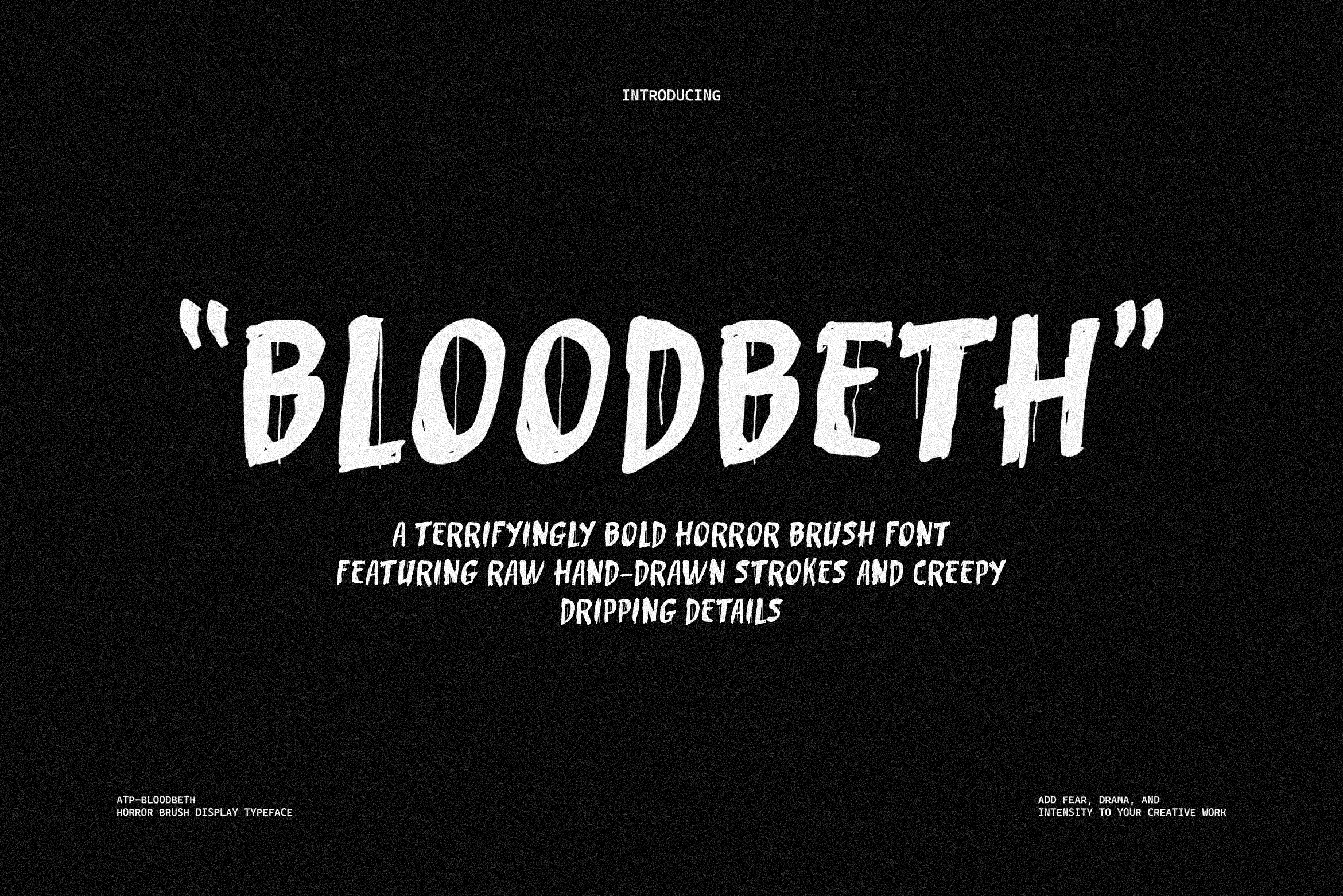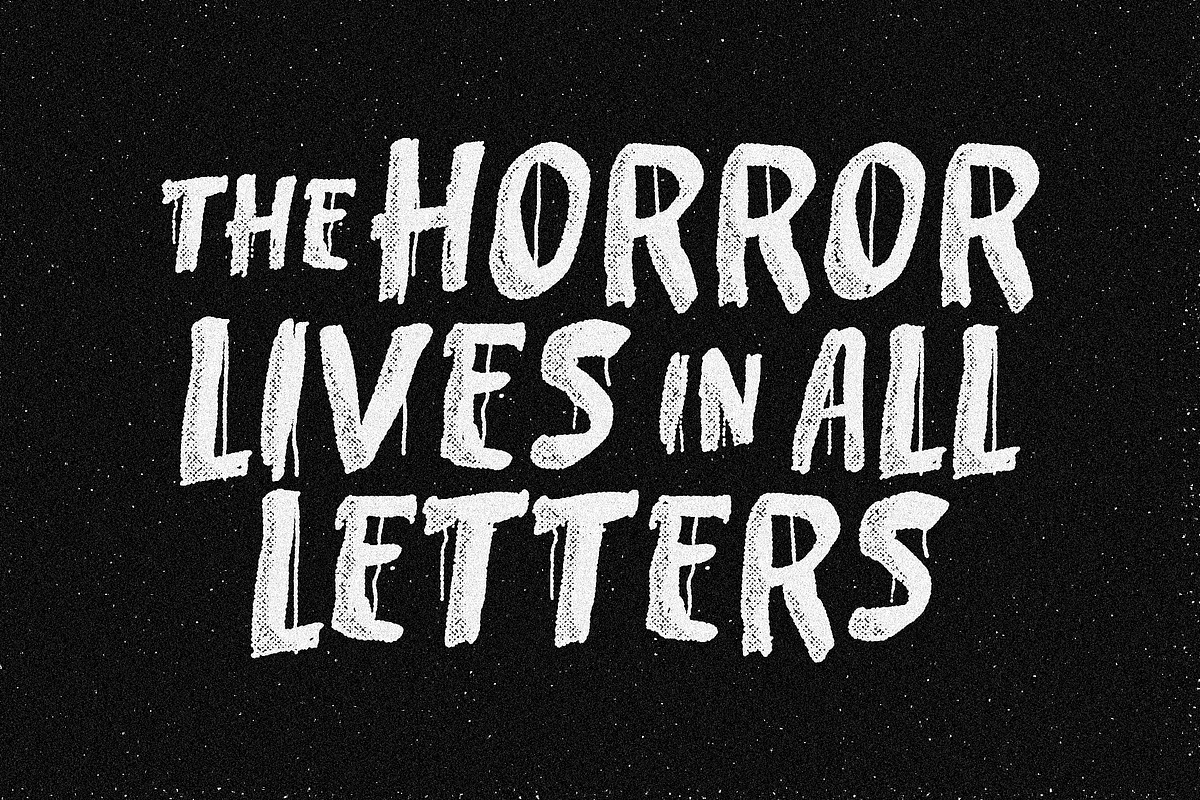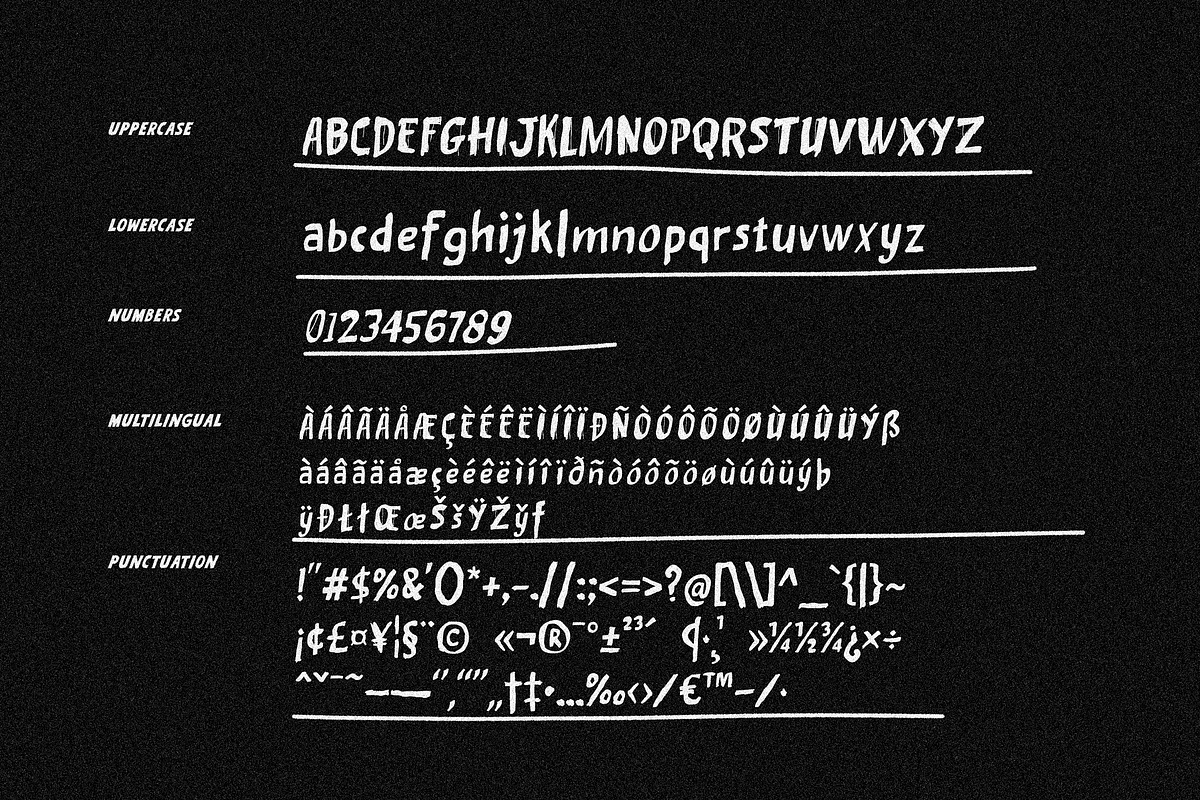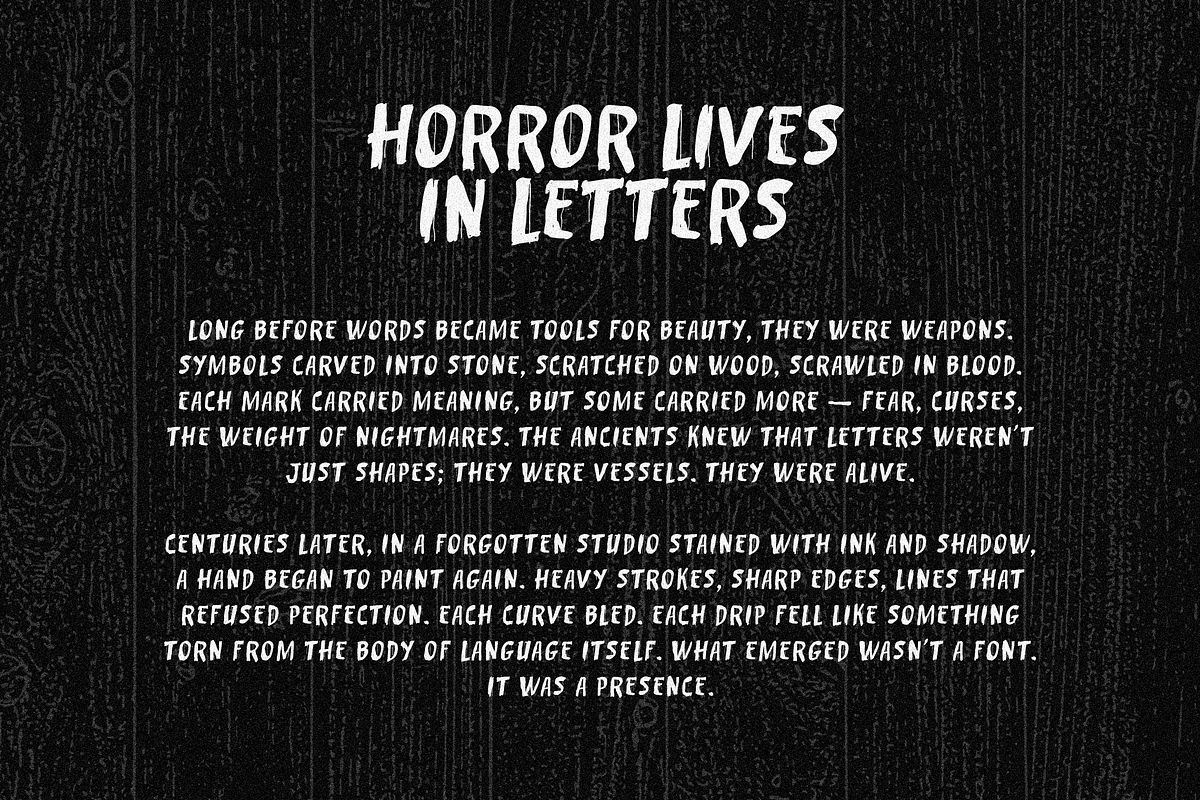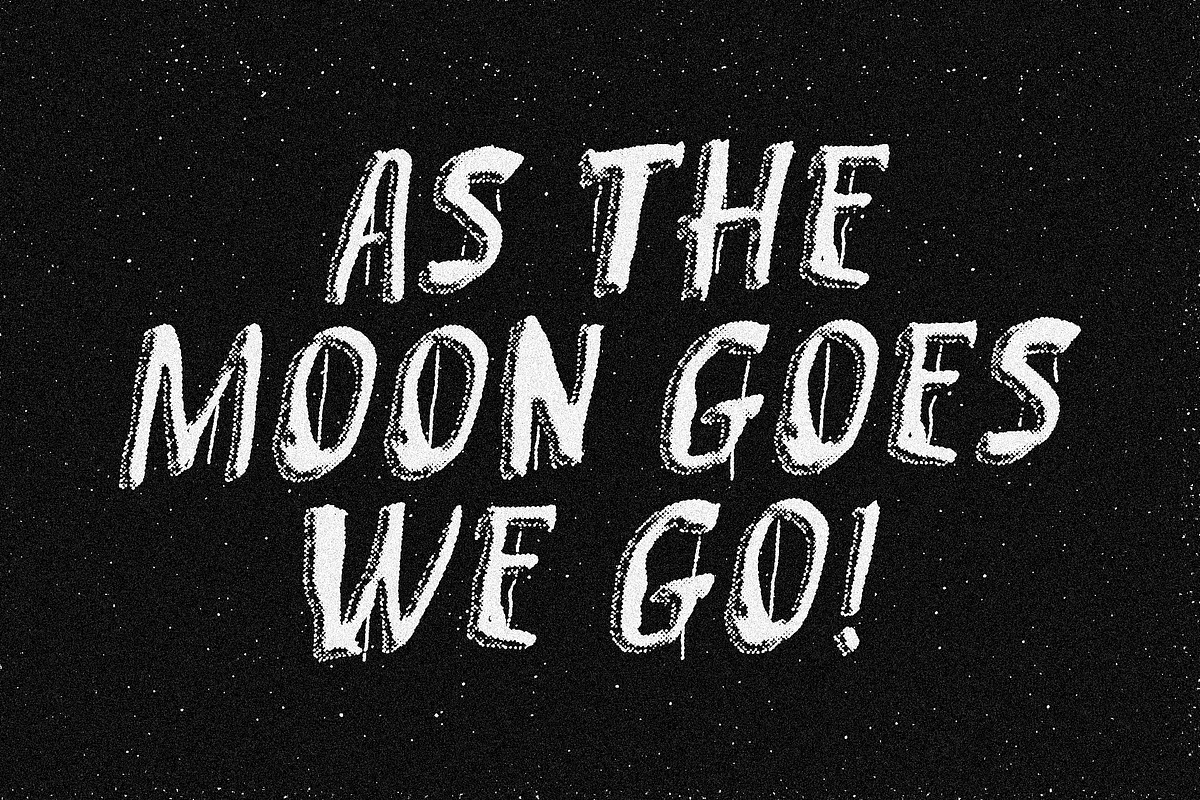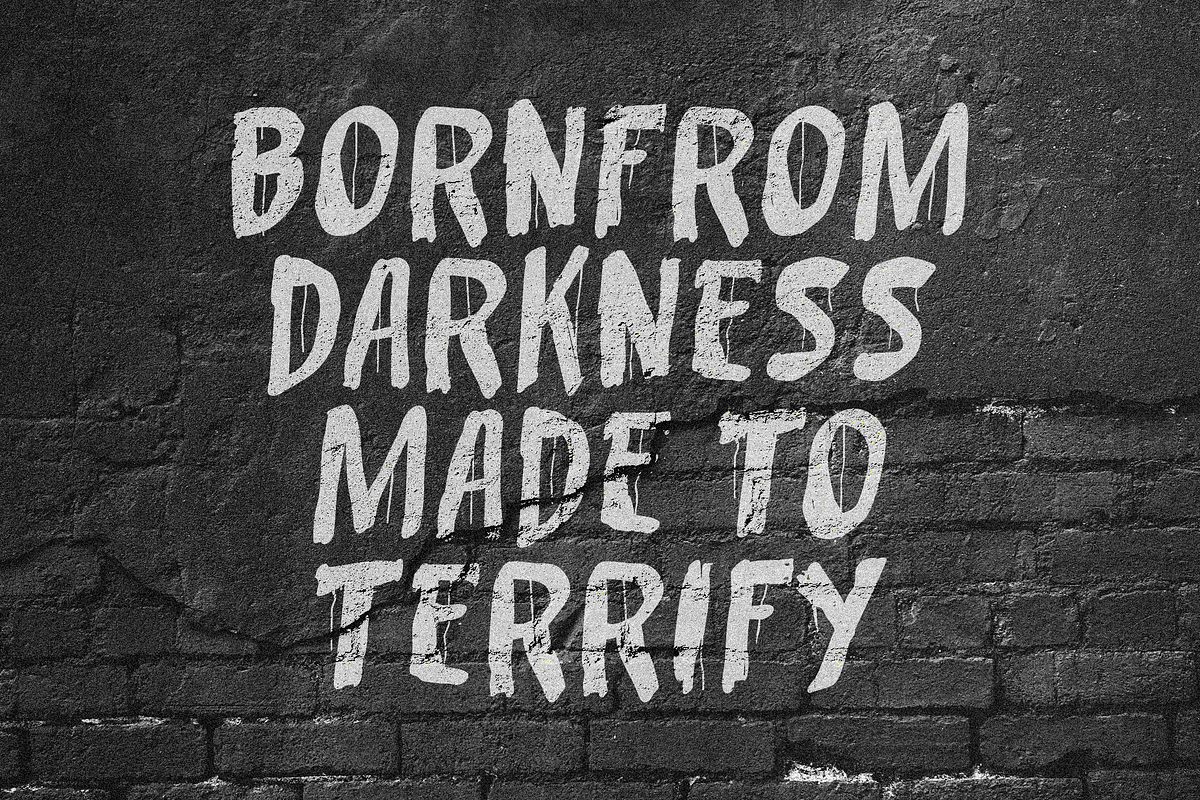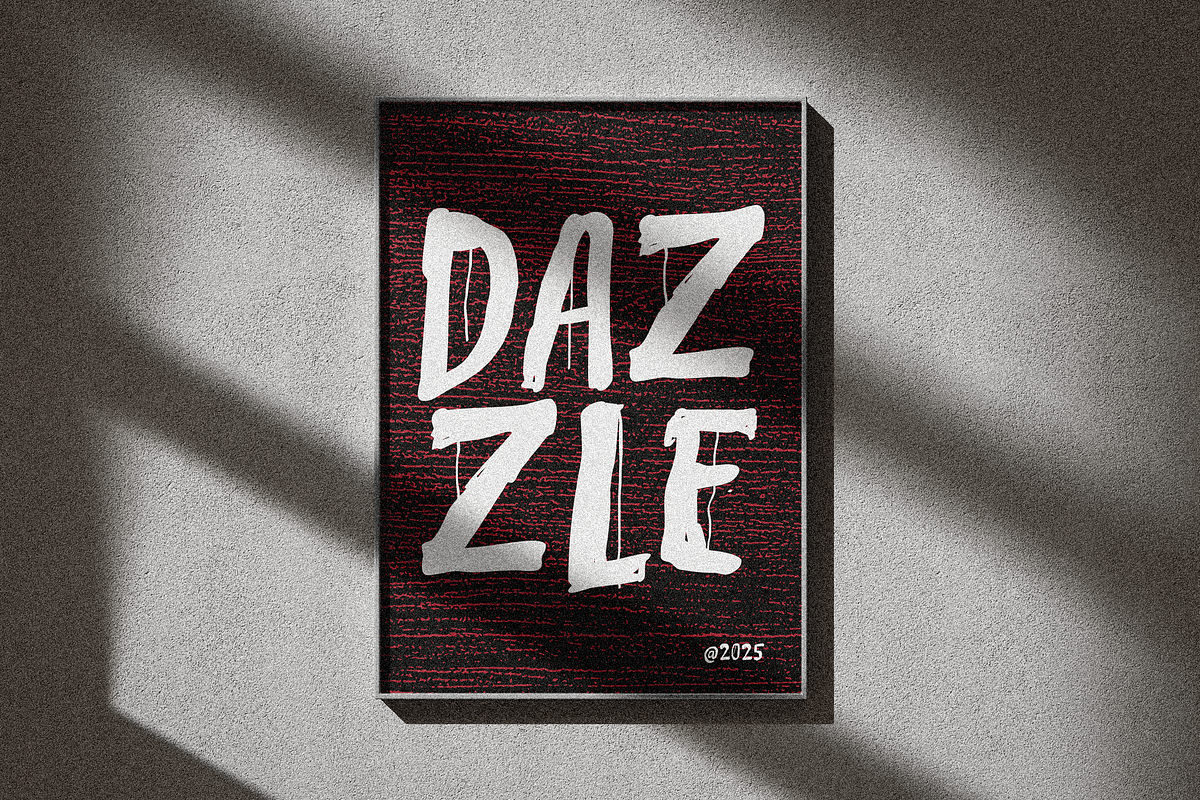
BloodBeth – Horror Brush Font
Bring your designs to life with Blood Beth, a terrifyingly bold horror brush font featuring raw hand-drawn strokes and creepy dripping details. Its rough, grunge-inspired texture creates an instant spooky, eerie, and gothic atmosphere, perfect for projects that demand a strong visual impact.
Lowercase
Numerics